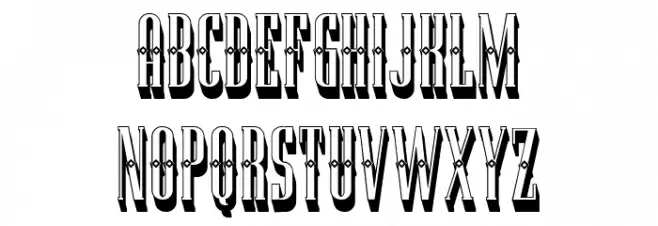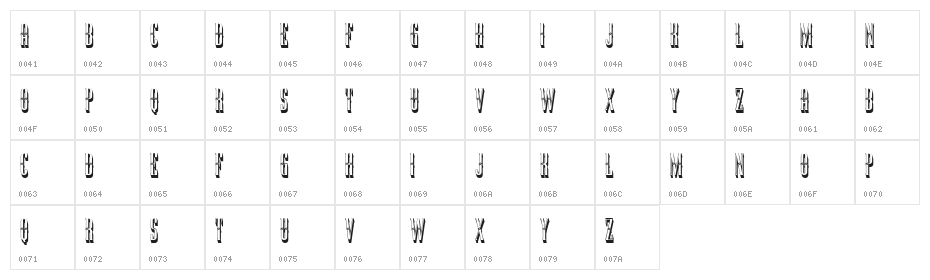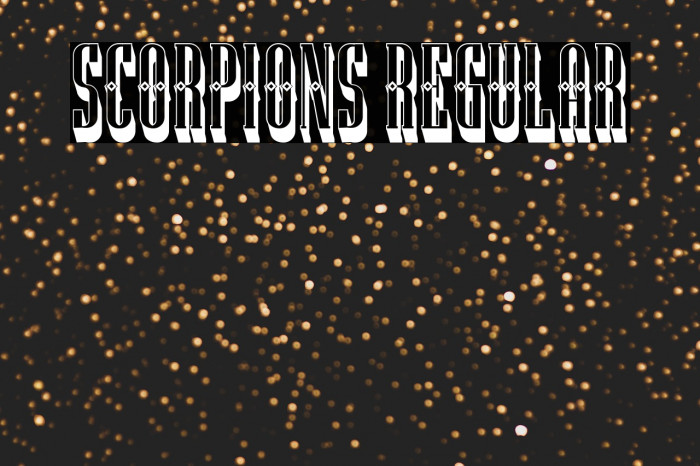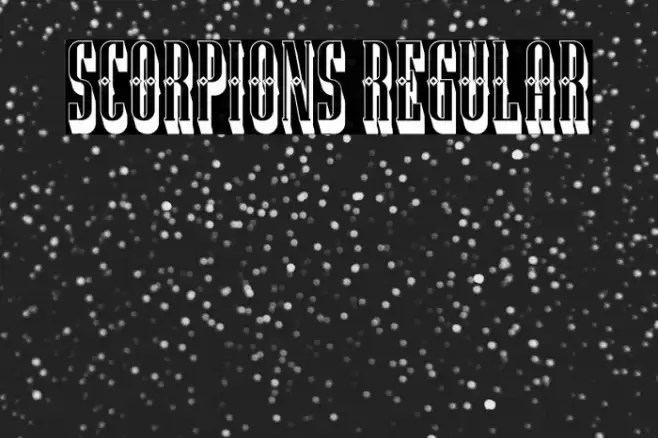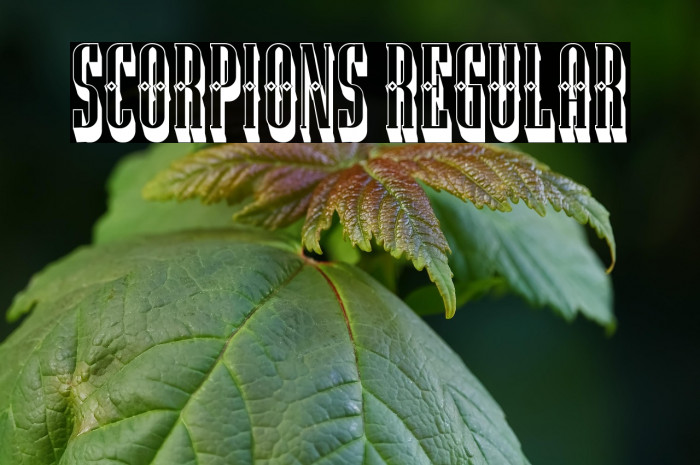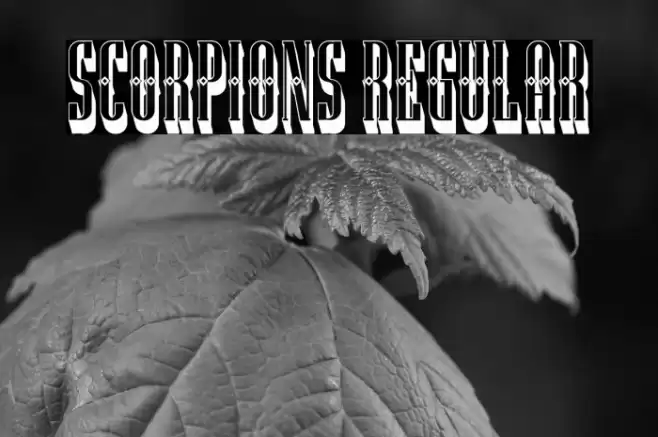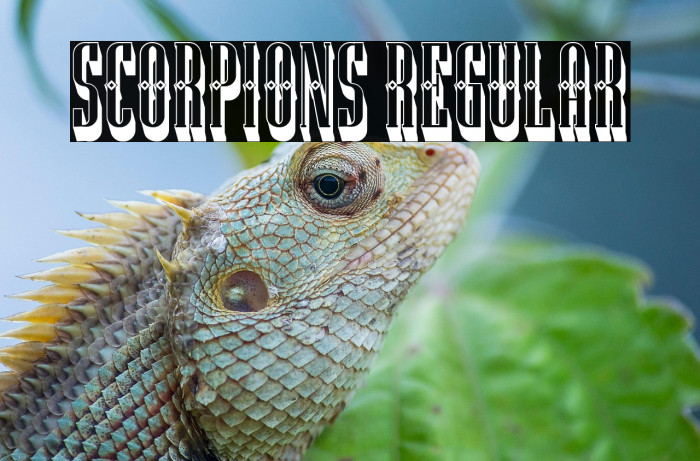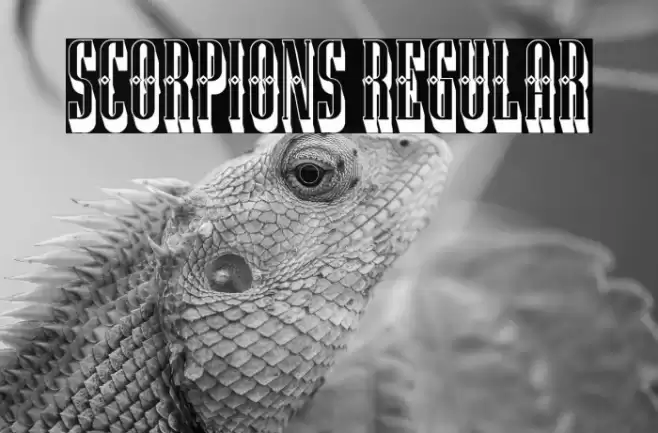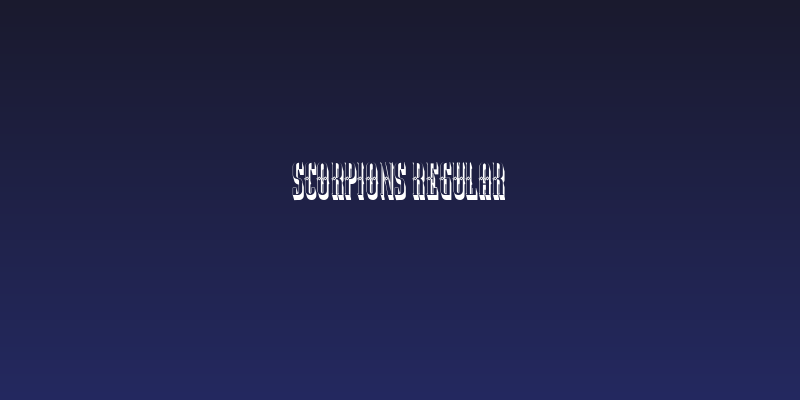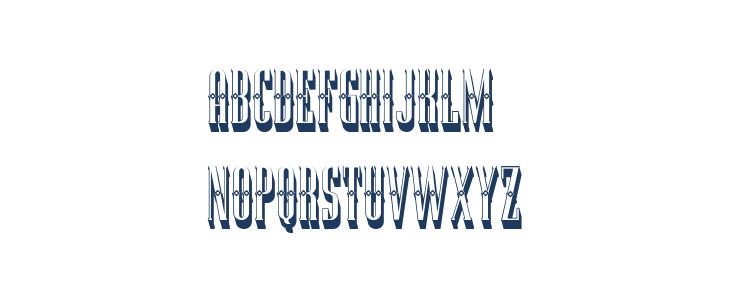
Scorpions Regular Font
Scorpions Regular Description
This font features a bold and dramatic style with a three-dimensional effect, giving it a striking and impactful appearance. The letters are uppercase, with a shadow that adds depth and a sense of movement. The design includes intricate details within each character, enhancing its decorative nature. The font's unique style makes it ideal for attention-grabbing headlines and titles. Its boldness and shadow effect create a sense of strength and stability, making it suitable for projects that require a powerful visual presence.
| Proposed Projects | This font is perfect for poster designs, event flyers, book covers, and branding projects that require a bold and eye-catching typeface. |